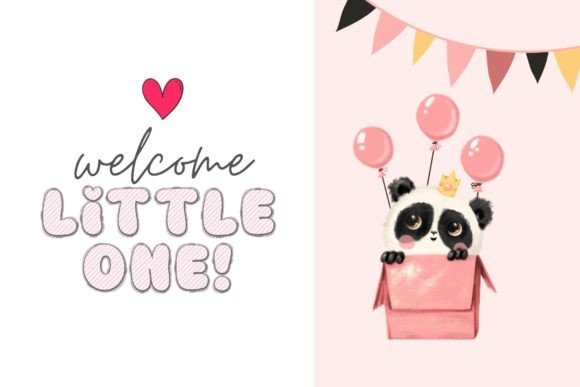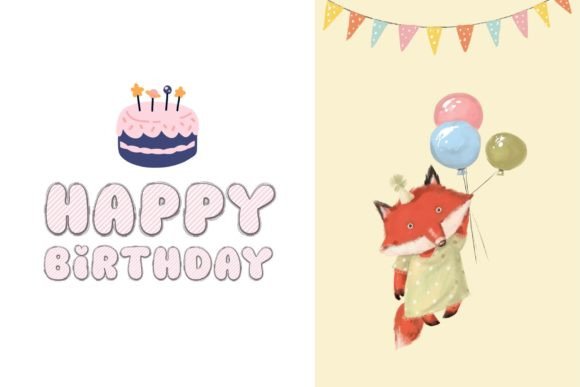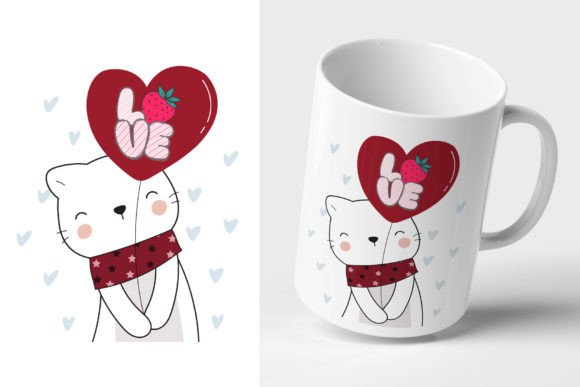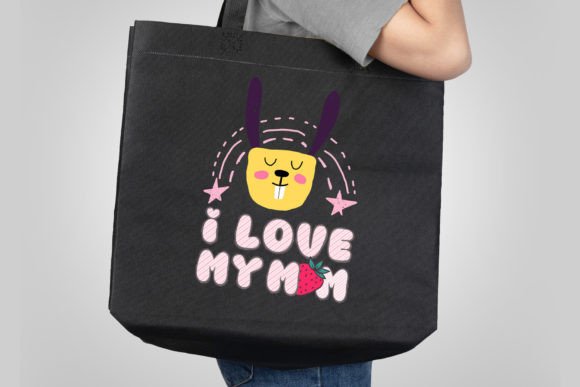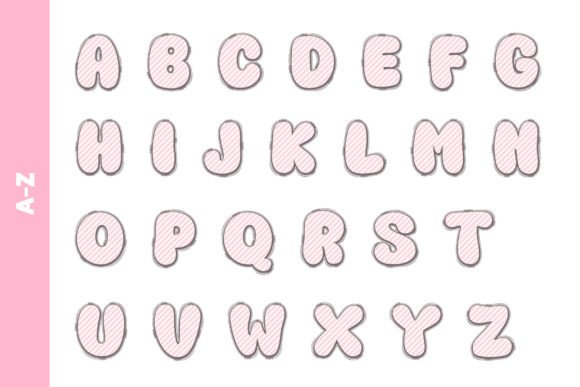
Introducing Fox Muffin Font: The Cute and Fun Color Font for Creative Expression
Are you a designer, social media influencer, or someone who loves to express themselves creatively? Look no further than the Fox Muffin Font, a charming and playful color font that’s perfect for adding a touch of warmth and affection to your projects. In this article, we’ll dive into the world of Fox Muffin Font and explore its features, benefits, and uses.
What is Fox Muffin Font?
Fox Muffin Font is a unique and delightful color font that’s designed to bring a smile to your face. Its authentic feel and cute aesthetic make it an ideal choice for crafting greeting cards, invitations, stationery art, social media posts, and more. With Fox Muffin Font, you can add a personal touch to your creations and make them stand out from the crowd.
Features of Fox Muffin Font
So, what makes Fox Muffin Font so special? Here are just a few of its key features:
- Cute and Fun Design: Fox Muffin Font boasts a playful and charming design that’s sure to capture the hearts of your audience.
- Color Font: Unlike traditional fonts, Fox Muffin Font comes in a range of colors, allowing you to add an extra layer of creativity to your projects.
- Authentic Feel: This font has a genuine and heartfelt feel that’s perfect for creating greeting cards, invitations, and other personal projects.
- Versatile: Fox Muffin Font can be used for a wide range of creative projects, from digital designs to print materials.
Uses of Fox Muffin Font
Fox Muffin Font is an incredibly versatile font that can be used in a variety of creative projects. Here are some ideas to get you started:
- Greeting Cards: Create beautiful and heartfelt greeting cards for special occasions like birthdays, weddings, and holidays.
- Invitations: Design stunning invitations for parties, events, and other gatherings.
- Stationery Art: Add a touch of personality to your stationery with Fox Muffin Font.
- Social Media Posts: Make your social media posts stand out with this eye-catching font.
Benefits of Using Fox Muffin Font
So, why should you choose Fox Muffin Font for your creative projects? Here are just a few benefits:
- Unique and Creative: This font allows you to add a personal touch to your projects and make them stand out from the crowd.
- Time-Saving: With Fox Muffin Font, you can create stunning designs in no time, saving you time and effort.
Tips for Using Fox Muffin Font
To get the most out of Fox Muffin Font, here are a few tips to keep in mind:
- Experiment with Colors: Don’t be afraid to try out different color combinations to find the perfect look for your project.
- Play with Sizes: Experiment with different font sizes to add emphasis and create visual interest.
- Mix and Match: Combine Fox Muffin Font with other fonts and design elements to create a unique look.